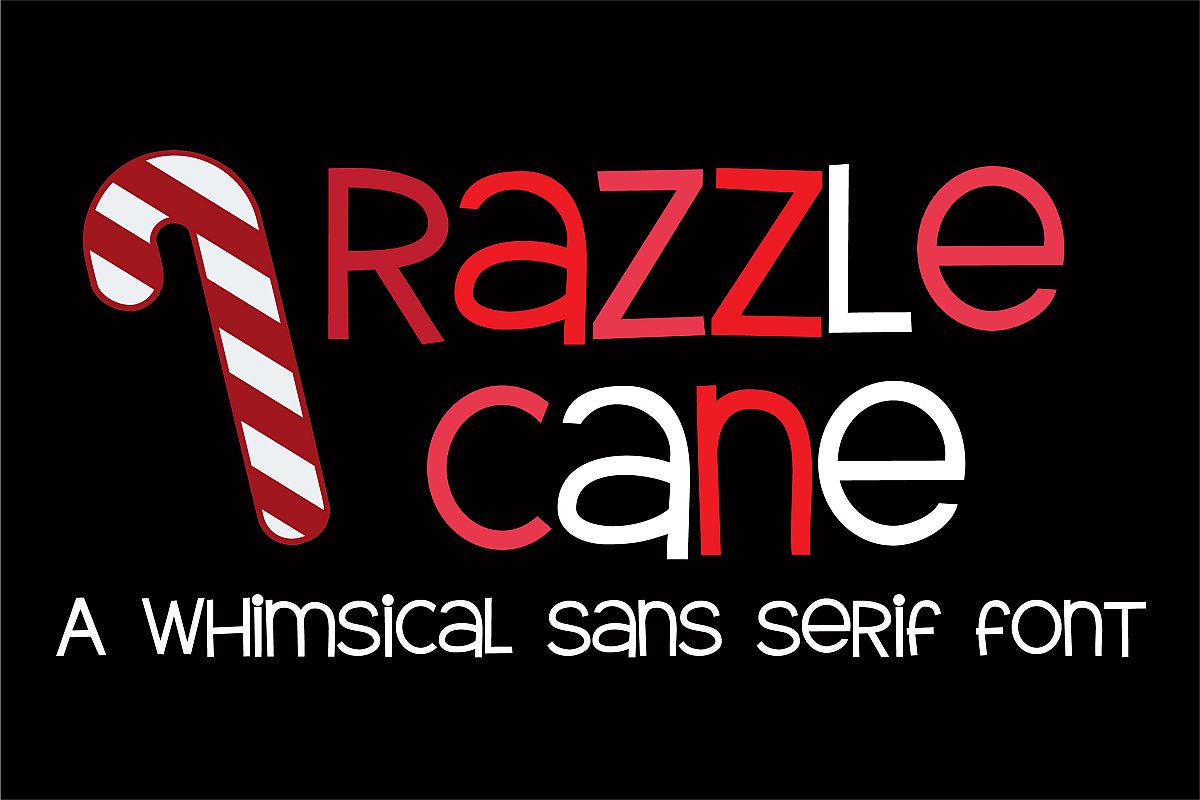
ZP Razzle Cane
This slightly whimsical sans-serif font is the sister font to ZP Razzle Berry, a serif font. Use both fonts together for a coordinated look.